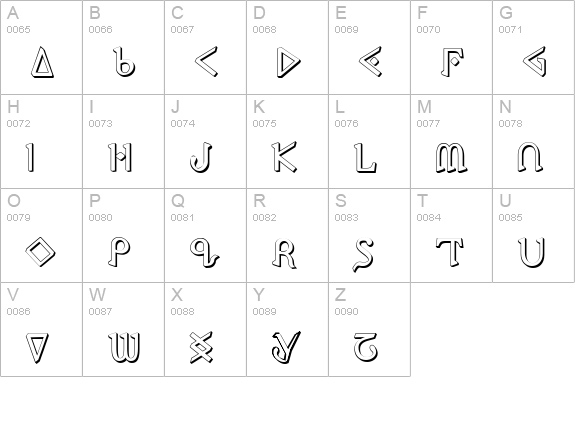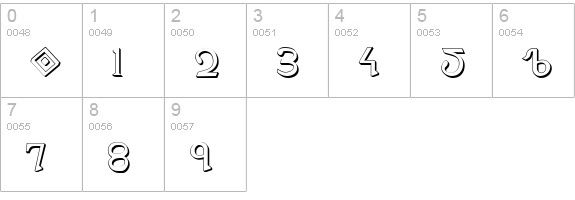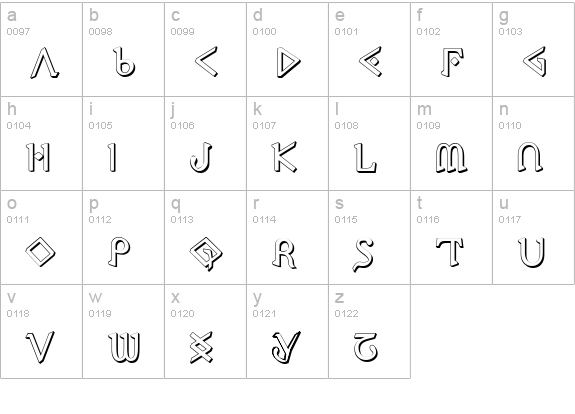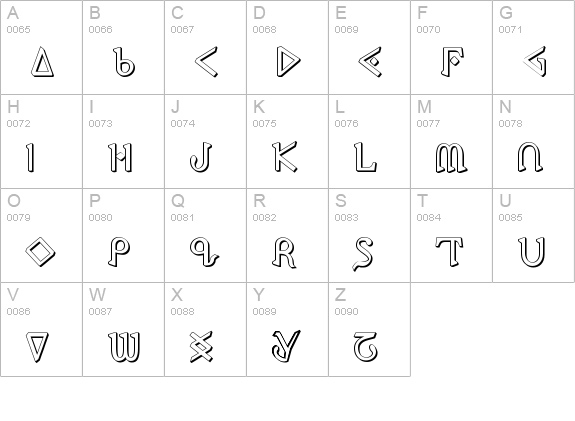
Introducing the exquisite Presley Press 3D font, a captivating typeface that brings depth and dimension to your creative projects. This unique font combines modern flair with a touch of retro charm, making it a versatile choice for a wide range of design applications. With its bold and eye-catching 3D effect, Presley Press adds a dynamic element to any text, logo, or branding design. Best of all, Presley Press 3D font is available for free download at FontsMarket.com, allowing you to elevate your designs without breaking the bank. Whether you're working on a poster, website, packaging, or any other project that calls for a standout font, Presley Press is sure to make a lasting impression. Embrace the power of 3D typography and let Presley Press take your designs to the next level.